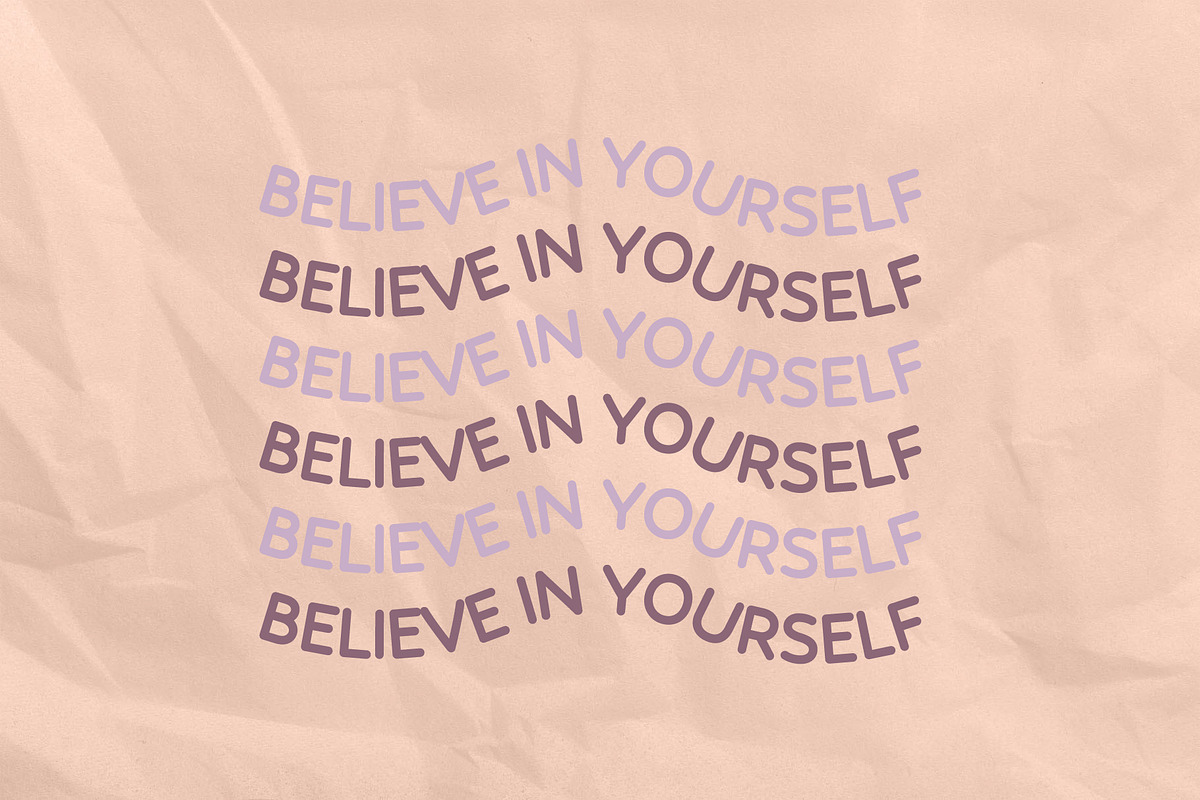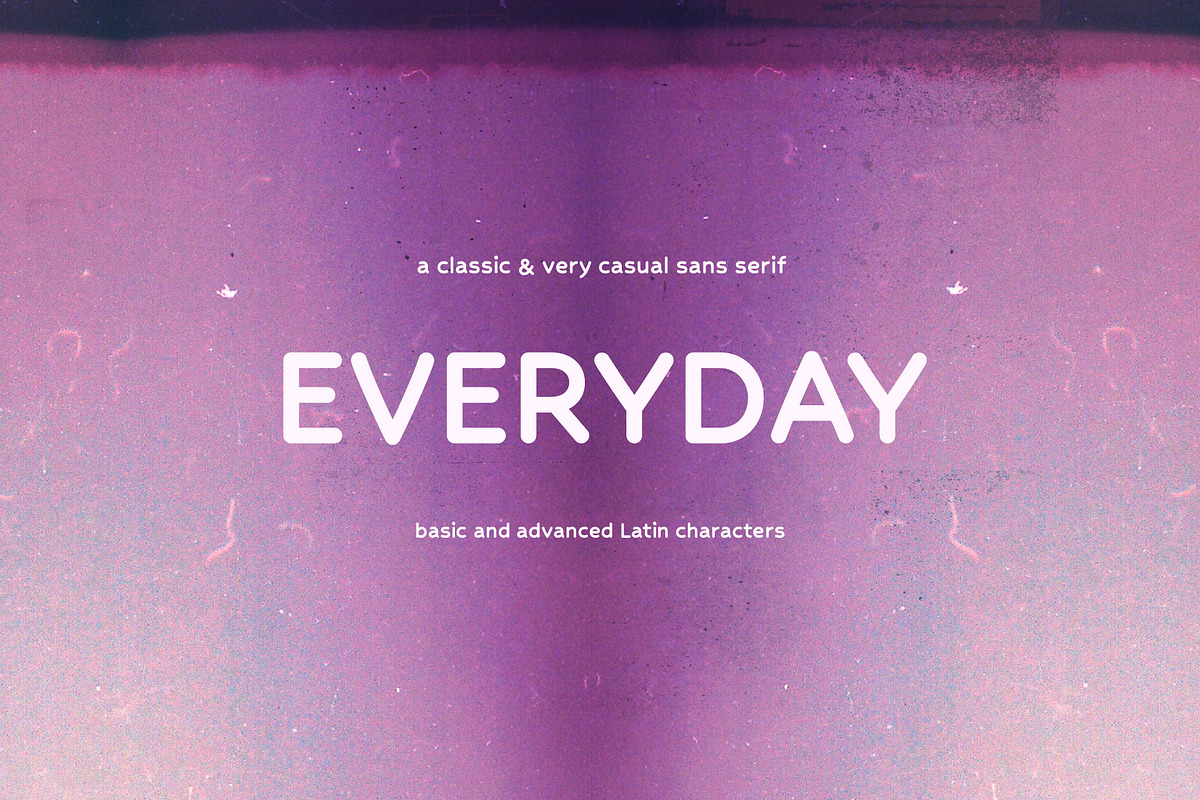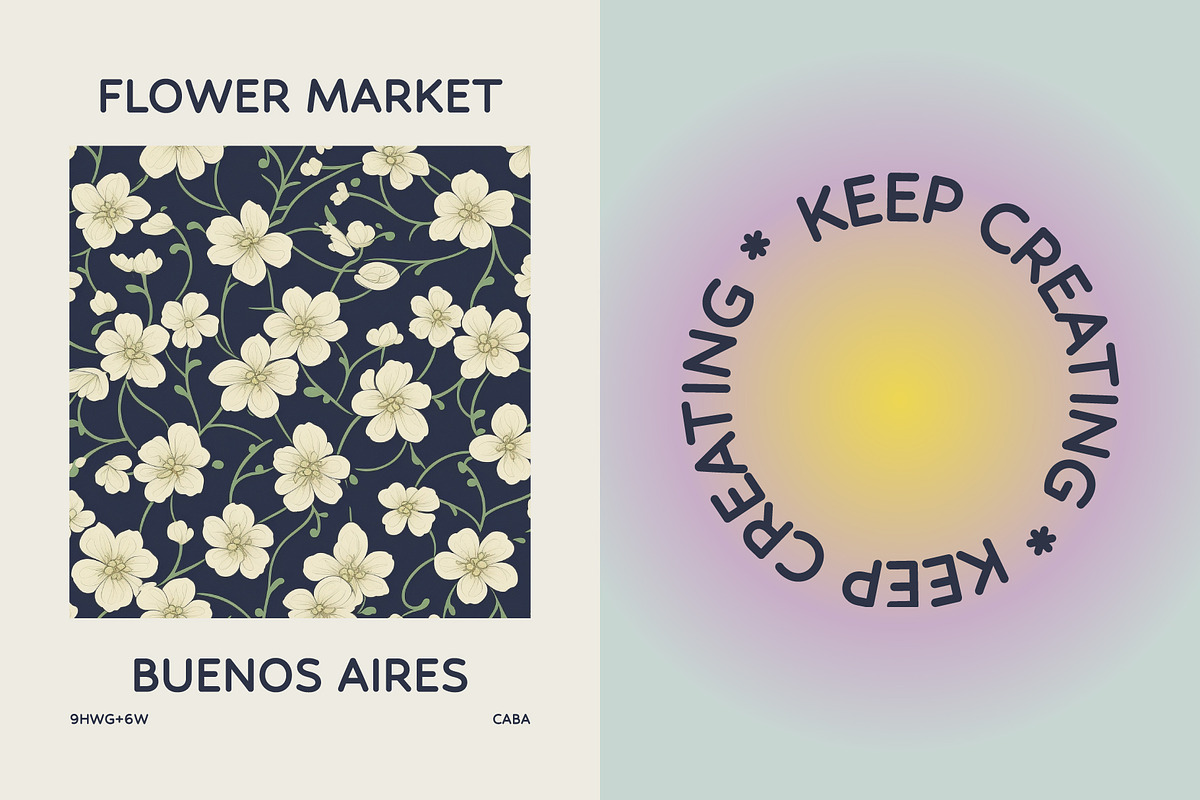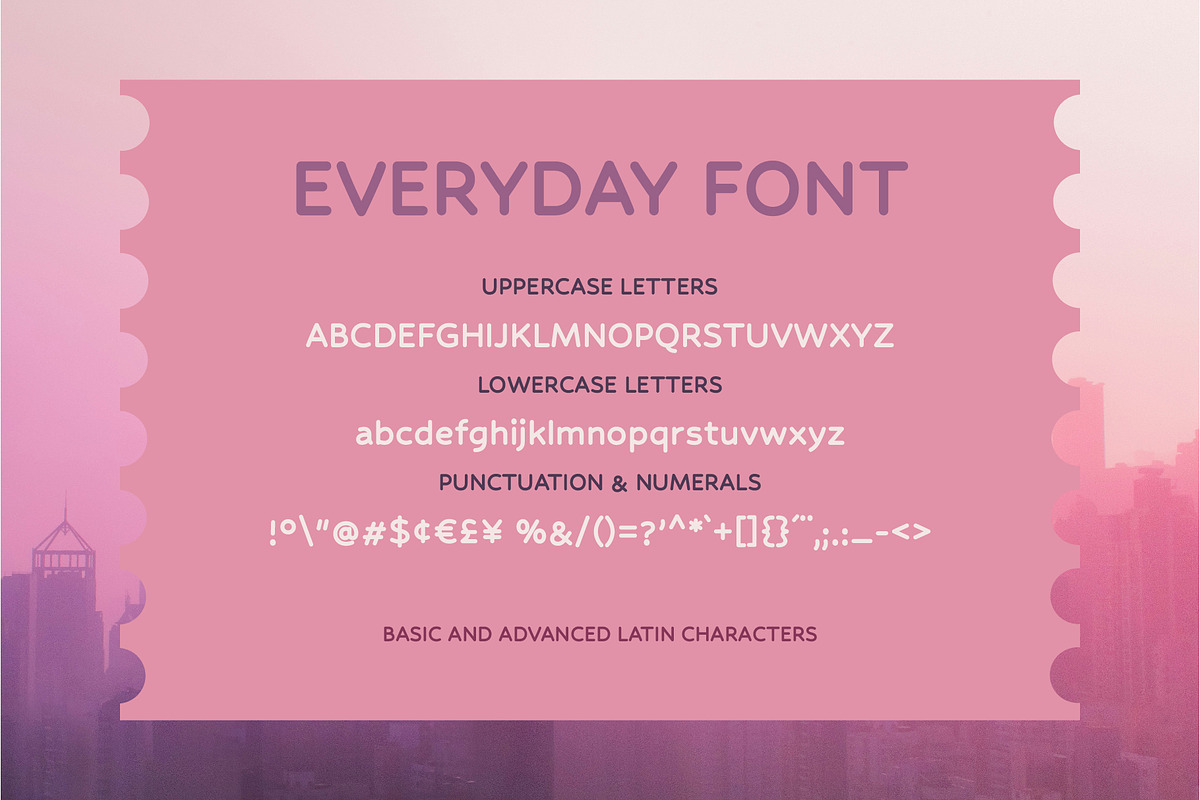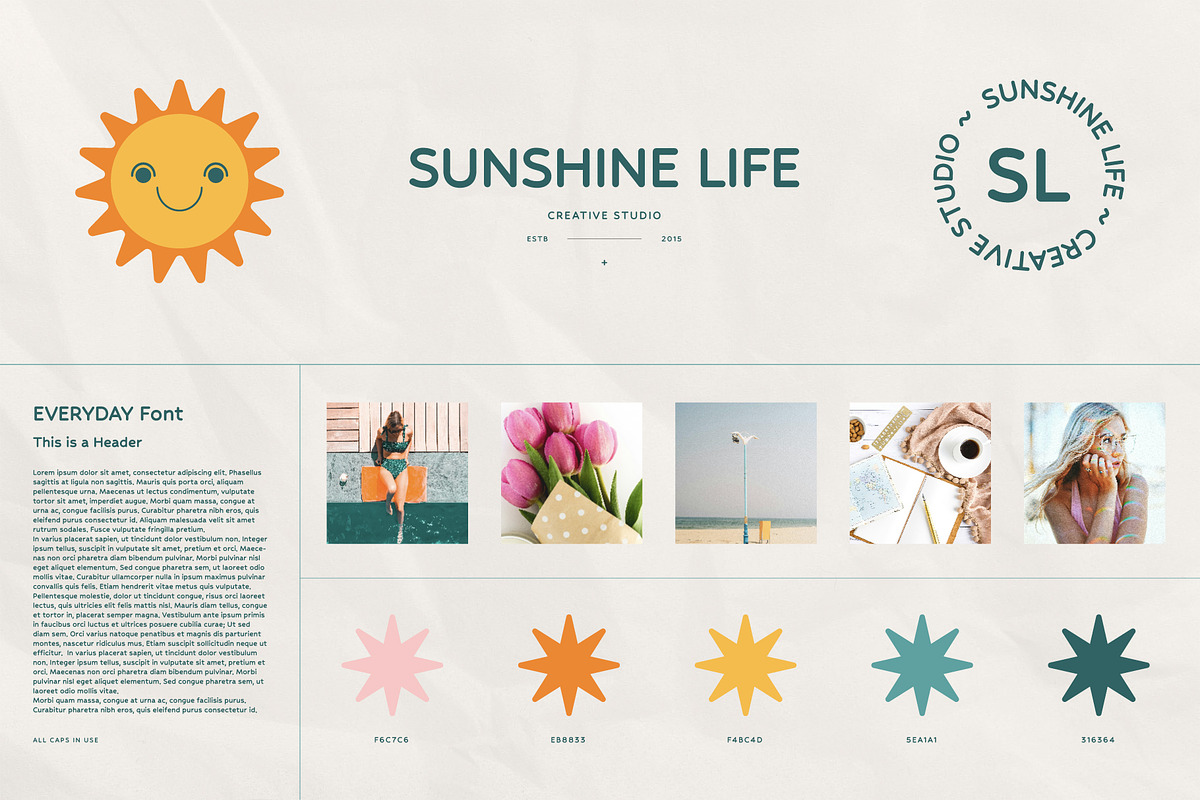
Everyday | Sans-serif Font
"Everyday" is perfect for branding, advertisements, web design, and editorial content. Suitable for both headings and body text, offering clear readability and aesthetic appeal. "Everyday" offers a clean and versatile style suitable for various design needs. It features a comprehensive set of characters, including standard punctuation and special symbols. With 214 glyphs, this font supports a wide range of typographic elements, making it ideal for both digital and print media. The font includes essential characters and symbols, ensuring usability across different types of projects.
It includes,
Uppercase letters
Lowercase letters
Punctuation and numerals
Basic and advanced Latin characters